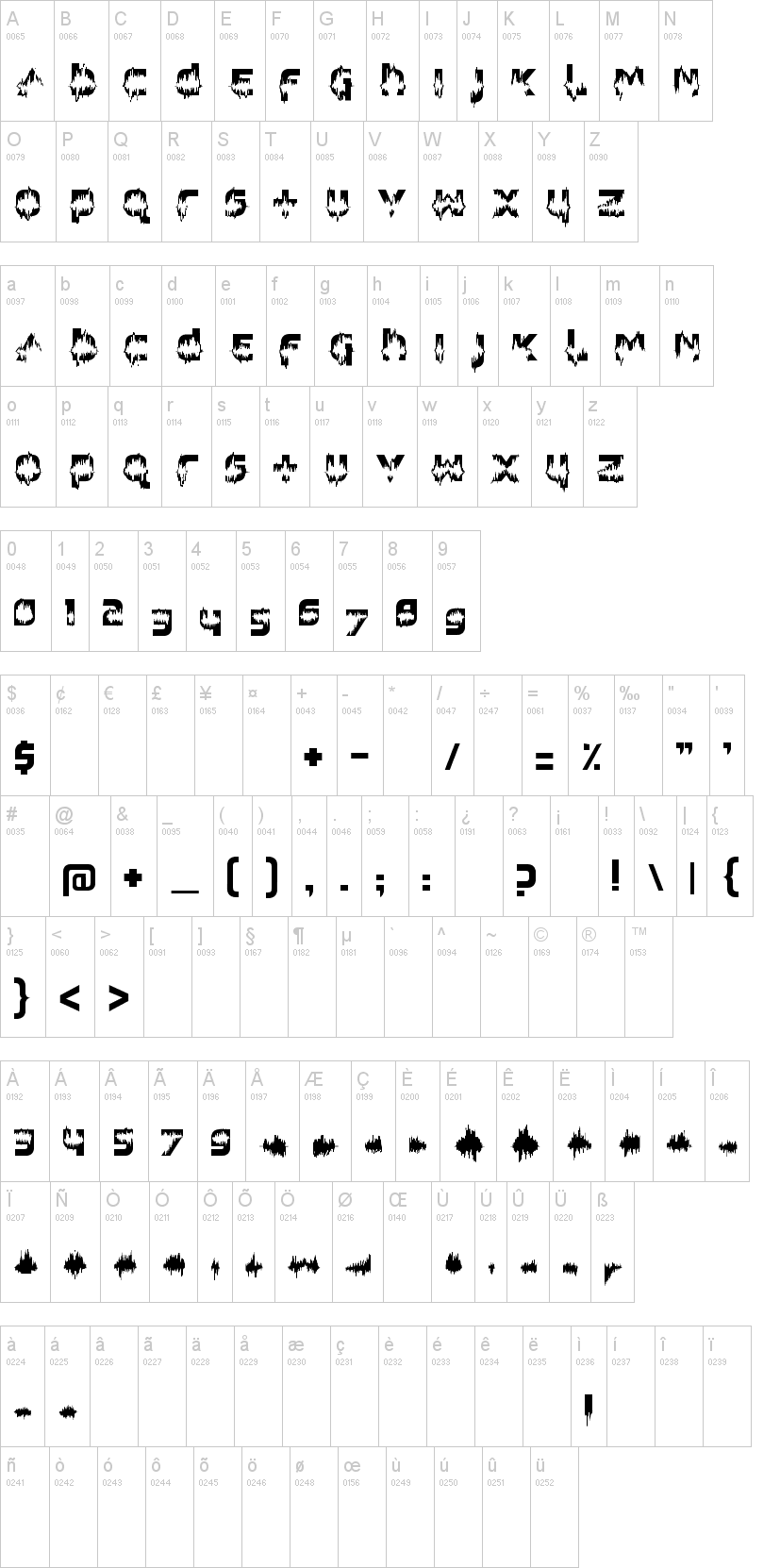
Шрифт Feedback Loud
Feedback 'Loud,' is a complex display face, complimented by the more simple 'Quiet' face. The typefaces bring the characters together to fuse them with digital waveforms.